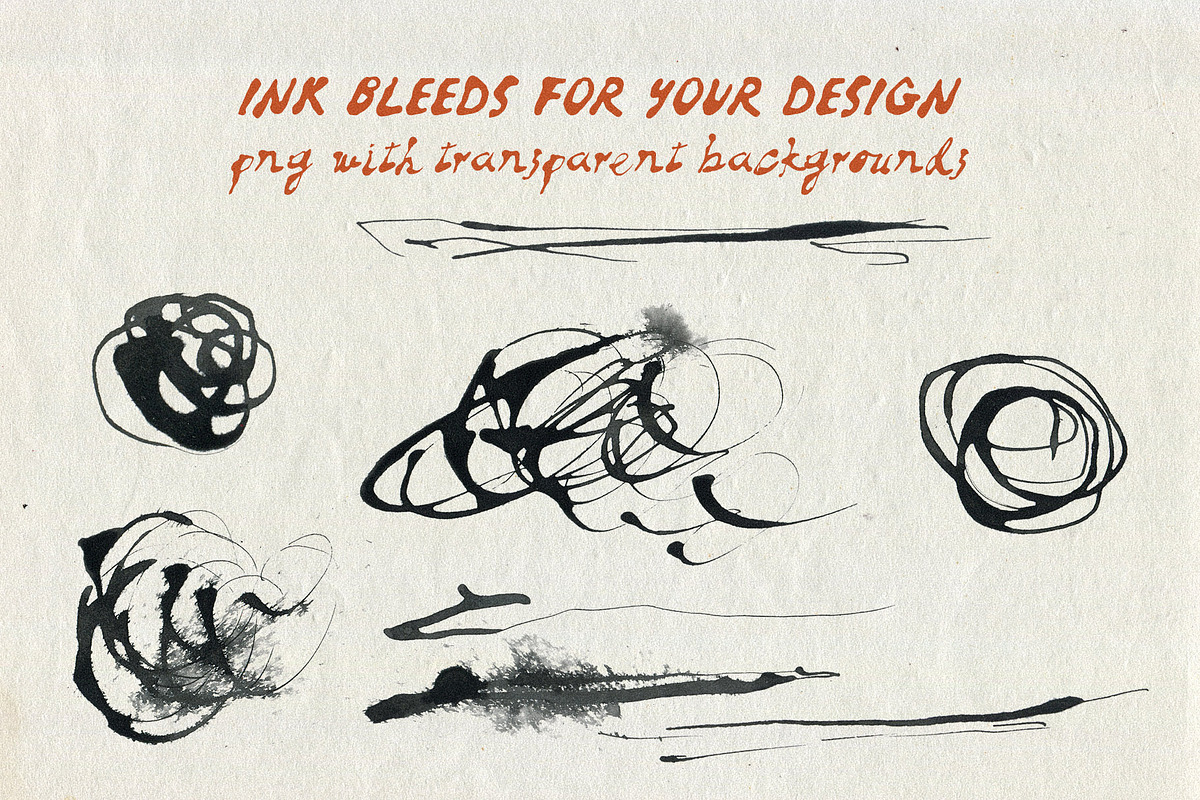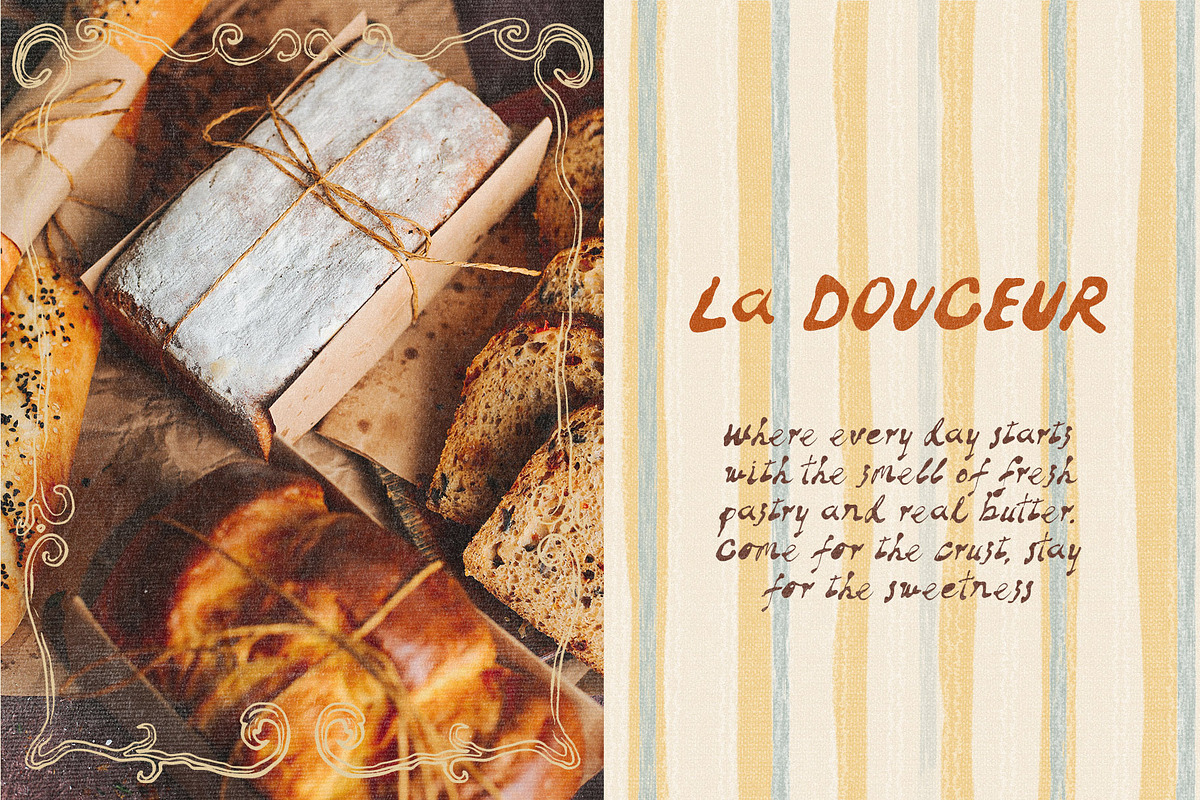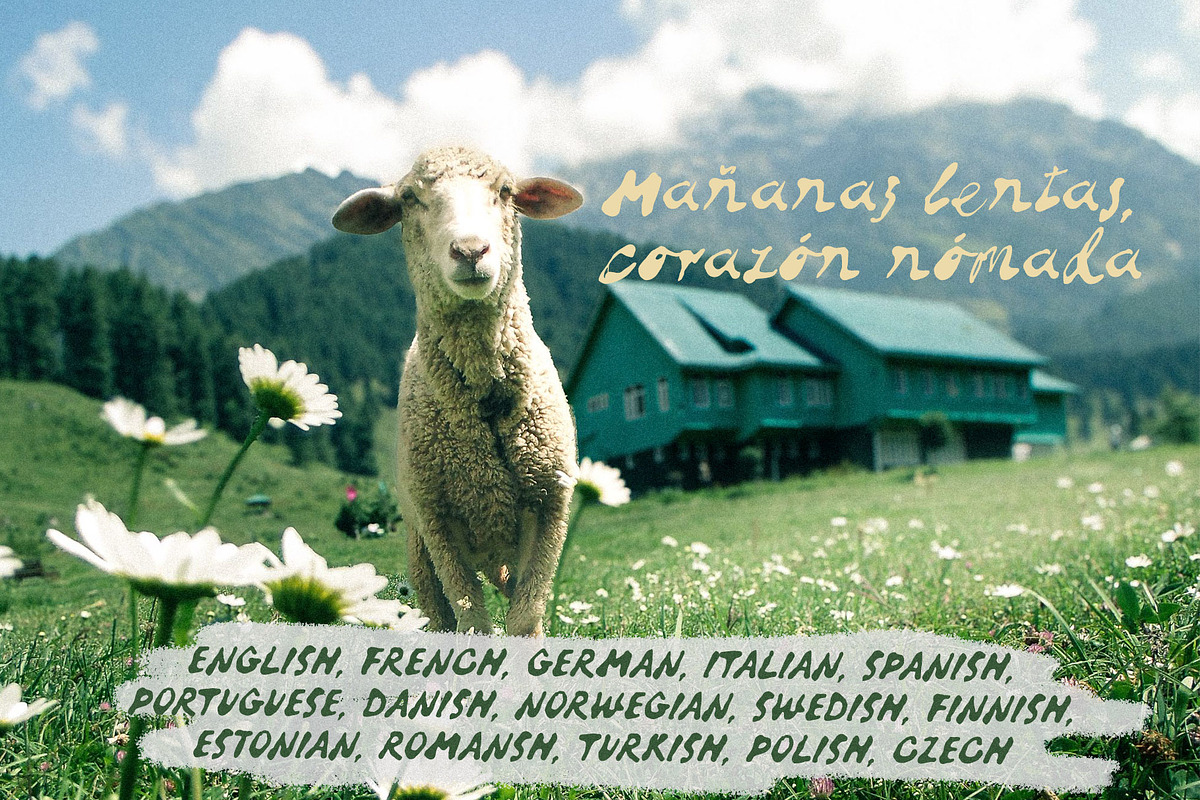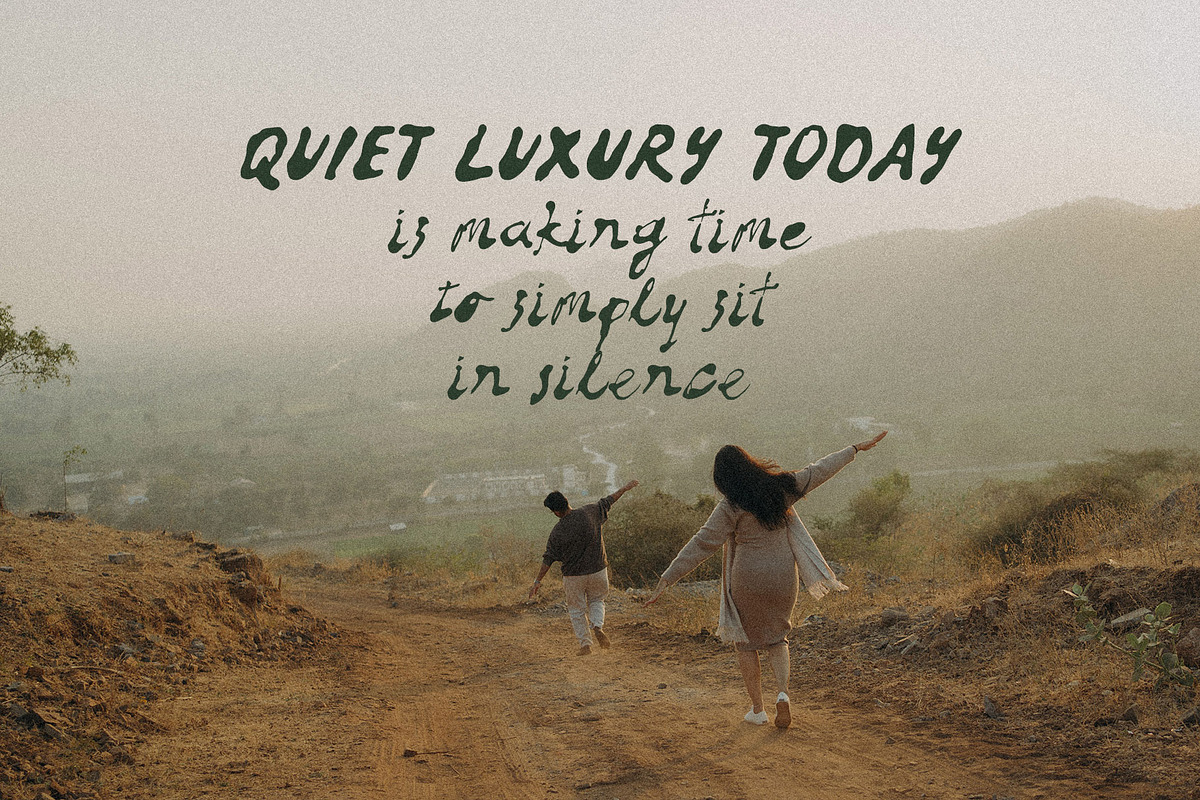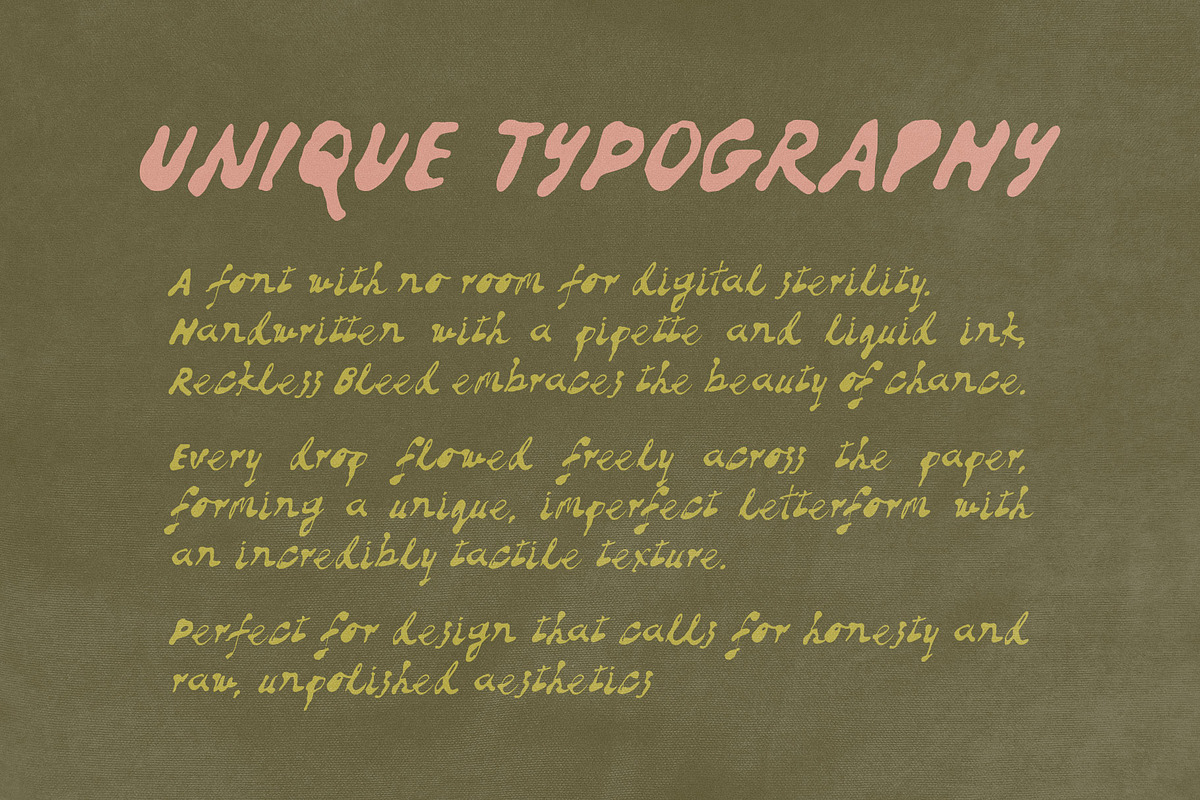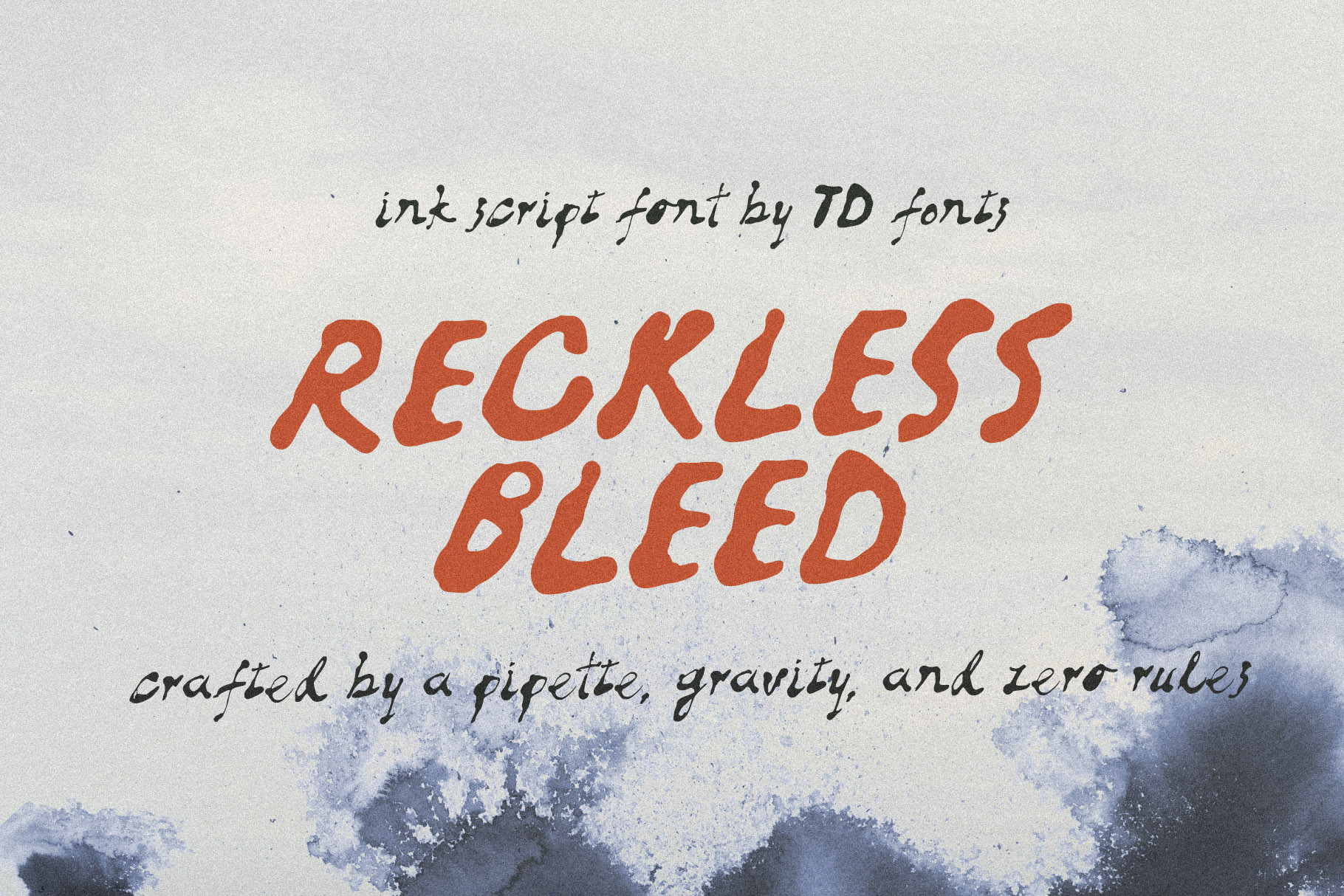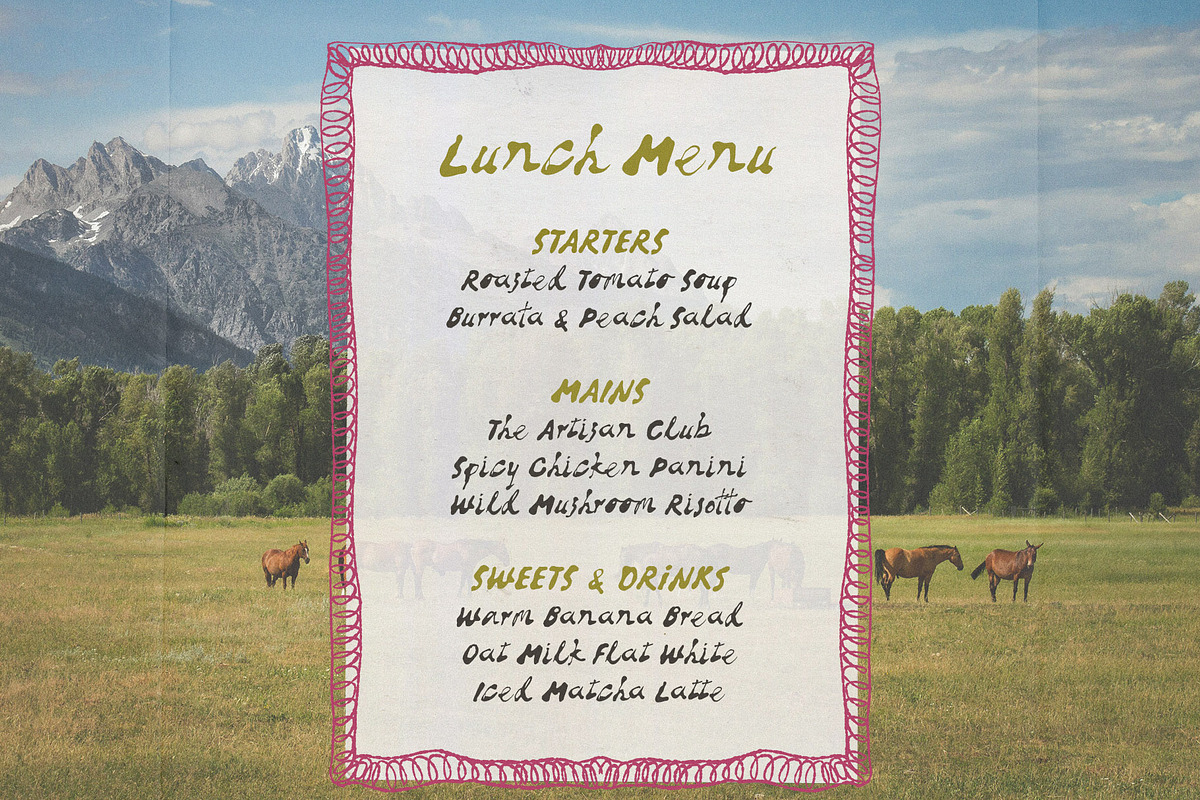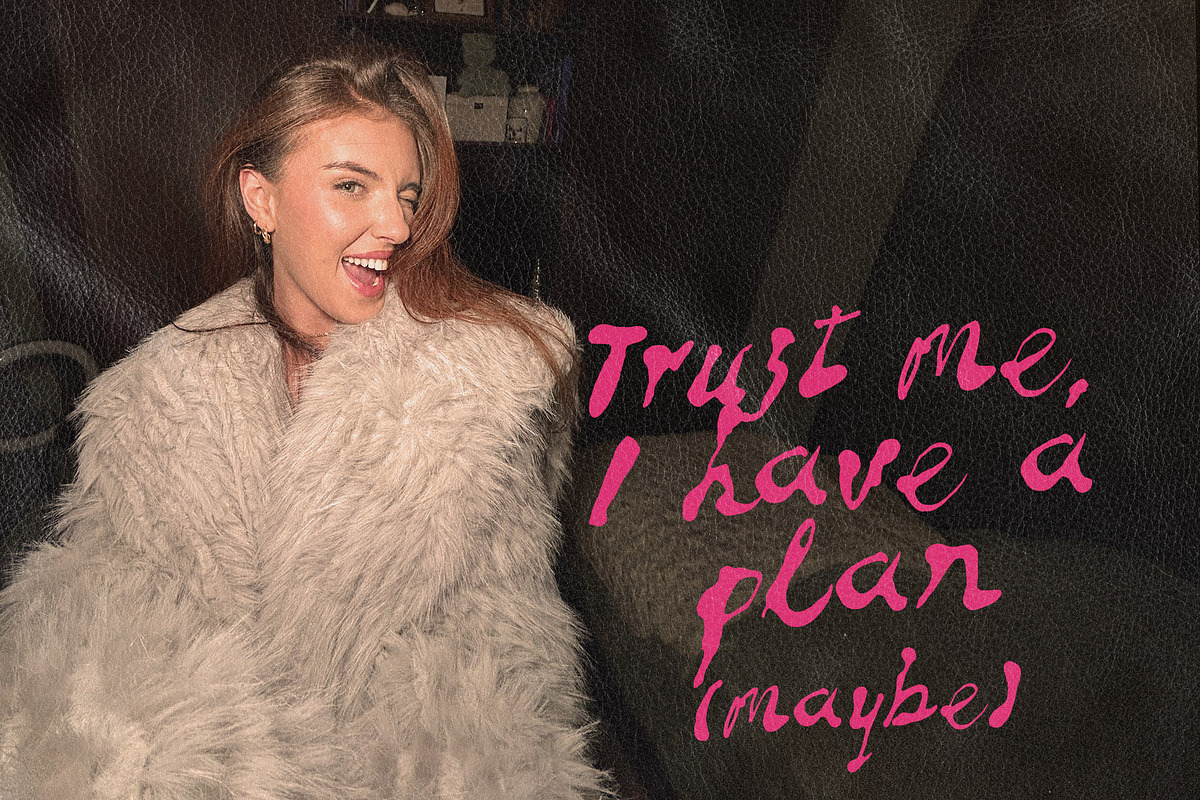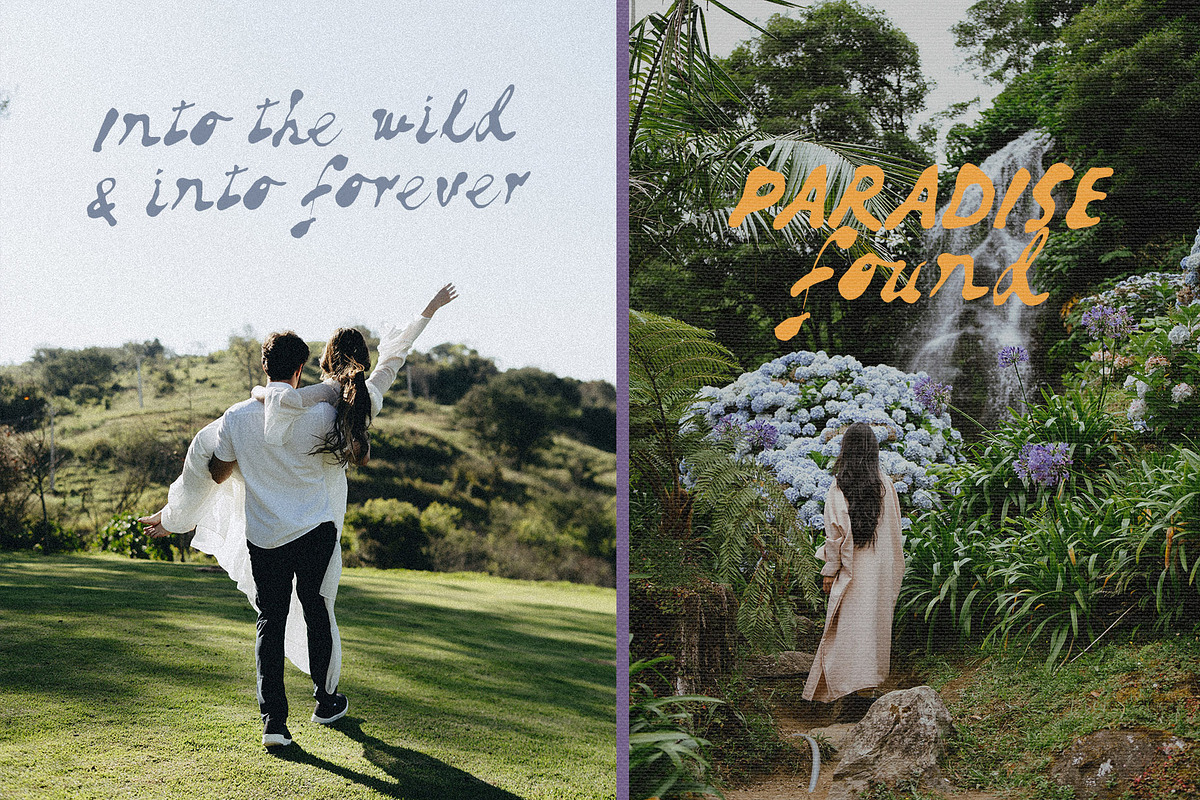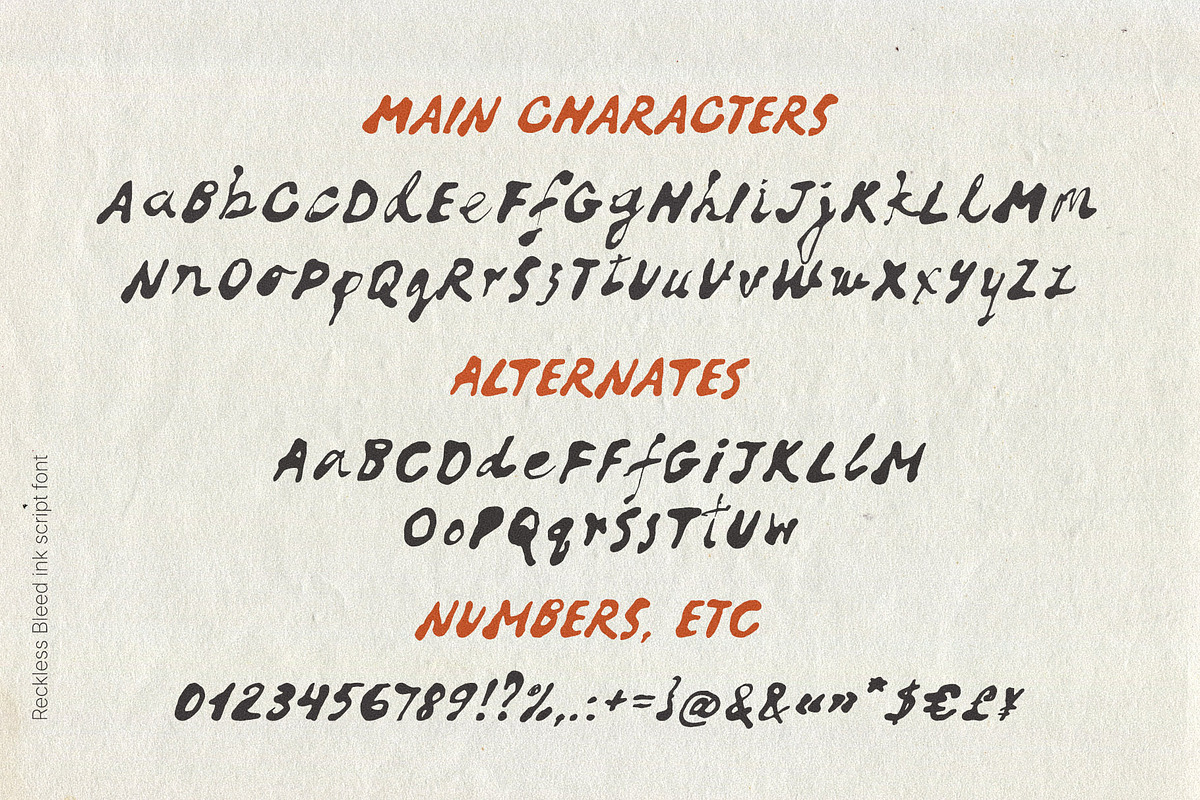
Reckless Bleed Ink Script Font
Reckless Bleed | Handwritten Liquid Ink Script Font
Natural bleeds, heavy drops, and zero control.
Reckless Bleed is an experimental liquid ink font born from pure freedom and a drop of beautiful chaos. This handwritten script font wasn't made with a brush or a pen — it was created with a pipette and liquid ink, left free to bleed across the paper. The result is a truly one-of-a-kind ink bleed typeface with an unmistakably tactile, organic texture.
Every letter carries its own weight. Gravity and the physics of liquid shaped these heavy, pooling drops at the tips of the strokes, the careless overflows, and the soft, natural ink bleeds. Letterform-wise, Reckless Bleed features a strongly irregular baseline, dramatic variable stroke weight, heavy ball terminals where ink pooled and settled, and exaggerated ink traps at the joins — physical traits no digital brush effect can fake.
Slow living and cottagecore aesthetics — perfect for atmospheric quotes and social media lettering
Modern wedding and event invitations
Apparel lettering, website headlines, and anywhere you need eye-catching text
Contemporary branding and logo design with a natural, crafted boldness
Packaging design — from natural cosmetics to specialty coffee and candles
Social media graphics, moodboards, travel journals, and magazine headlines
Album covers, film and series titles, podcast and video branding
Alternates — a large set of alternate characters so every word feels truly handwritten, with no repeating identical letters
Full multilingual support — extensive language coverage with all essential diacritics (works beautifully with English, French, German, Italian, Spanish, Portuguese, Danish, Norwegian, Swedish, Finnish, Estonian, Romansh, Turkish, Polish, Czech)
Let the ink bleed freely, and add a little honest, textured chaos to your design.